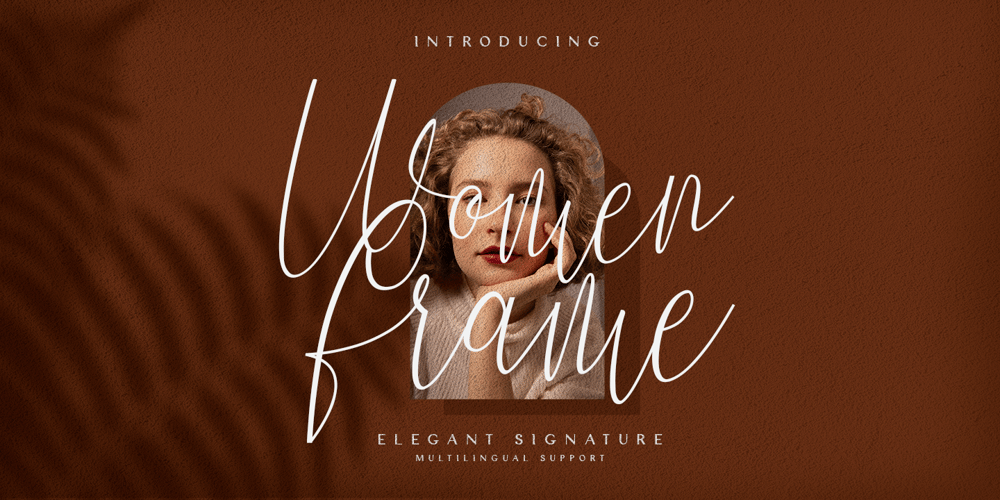
Women Frame
Women Frame font
Women Frame Font Family was designed by Wildan Carbon and published by Wildan Type. Women Frame contains 1 styles and family package options. Women Frame is a modern calligraphy font with sweet pressure. i hope this font perfect for creating signature logos and watermarks for photography studio or wedding invitation. I made it with love and magic!!Women Frame includes full set of beautifull hand lettered uppercase and lowercase letters, numerals, a large range of punctuation and ligatures. All lowercase letters include beginning and ending swashes. In order to use the beautiful swashes, you need a program that supports OpenType features such as Adobe Illustrator CS, Adobe Photoshop CC, Adobe Indesign and Corel Draw. if you have questions, please provide a short message to us